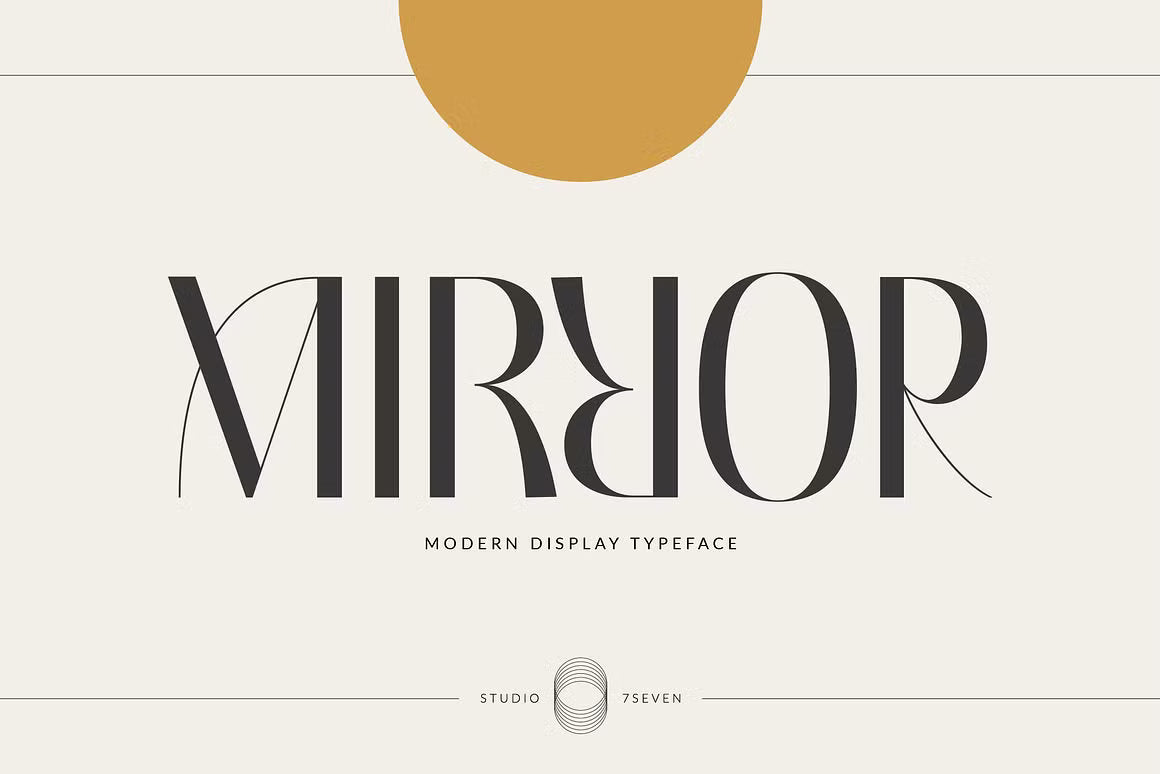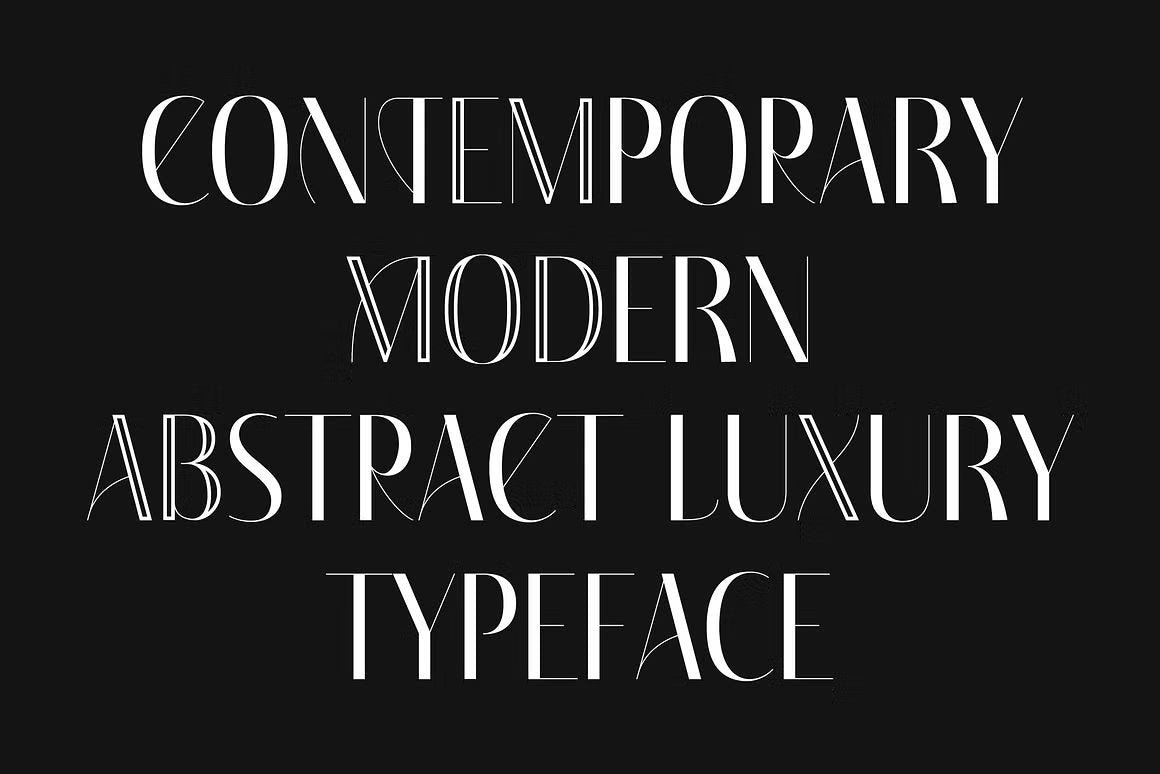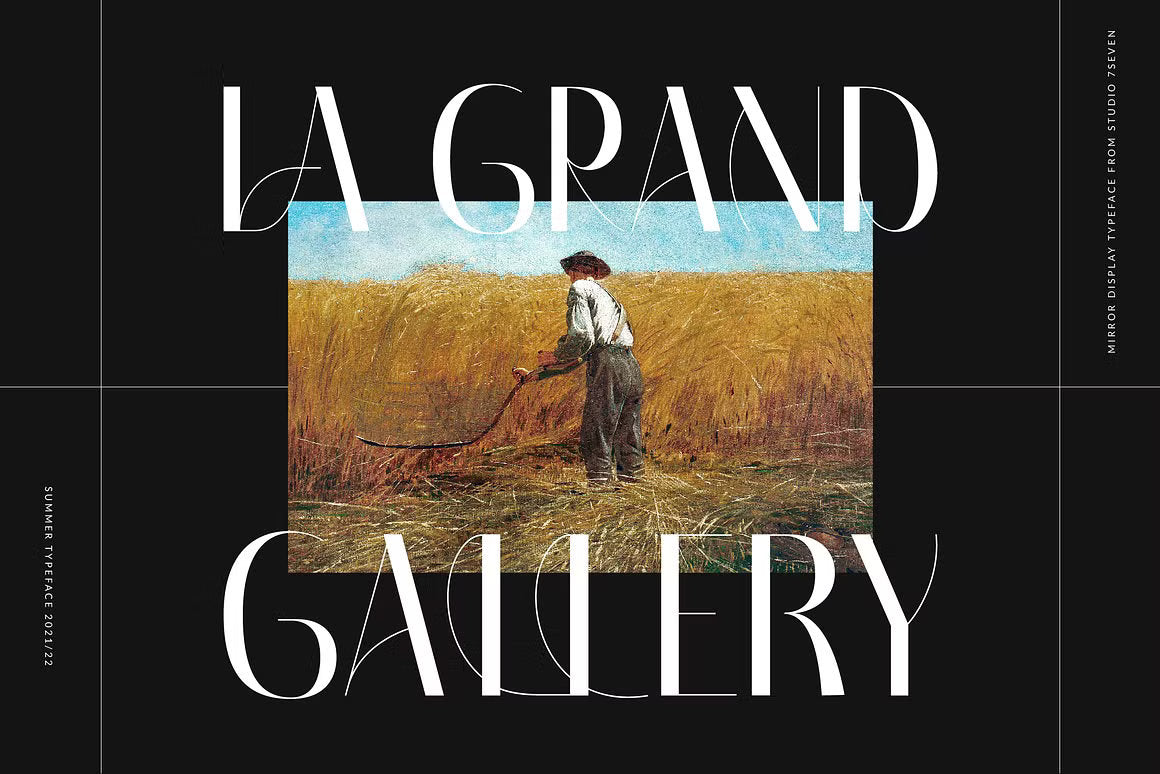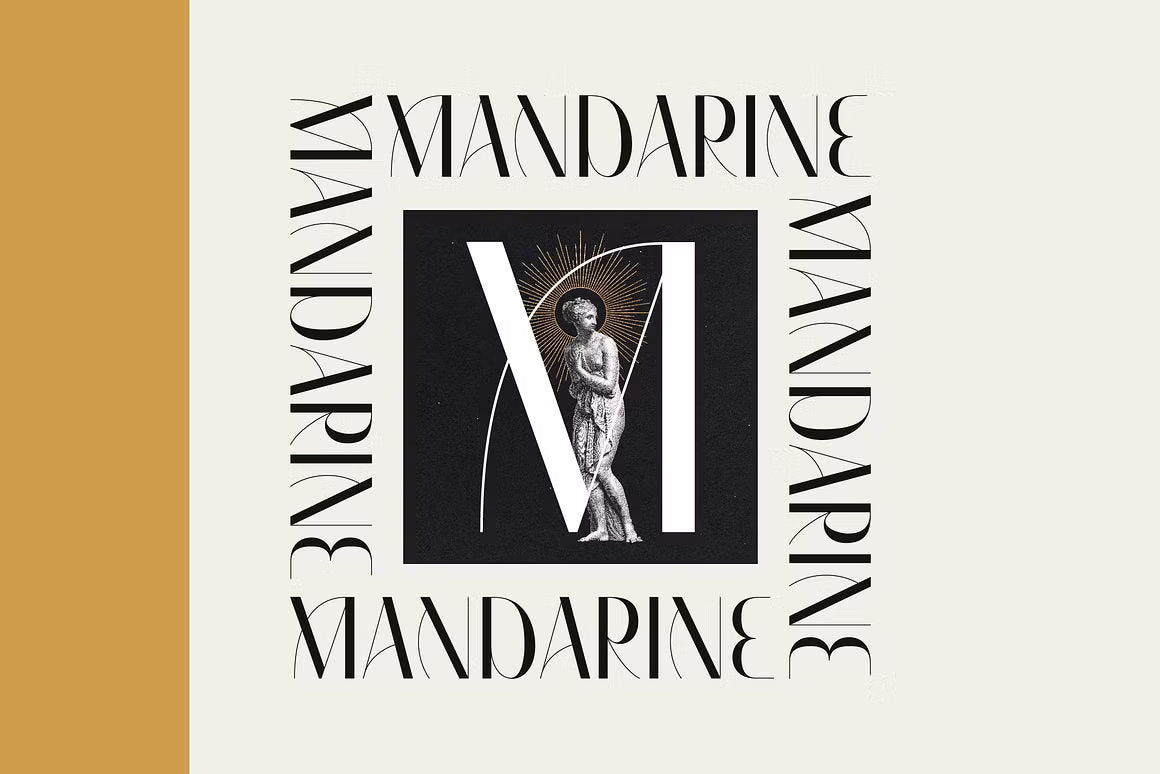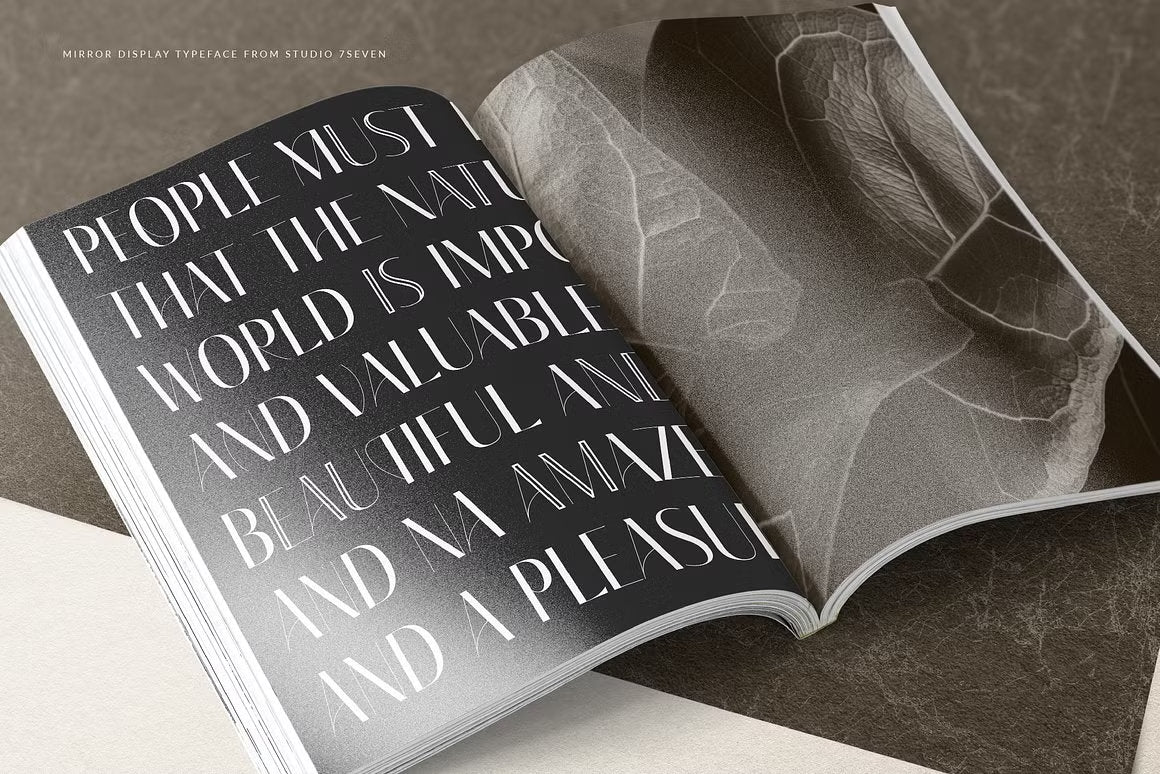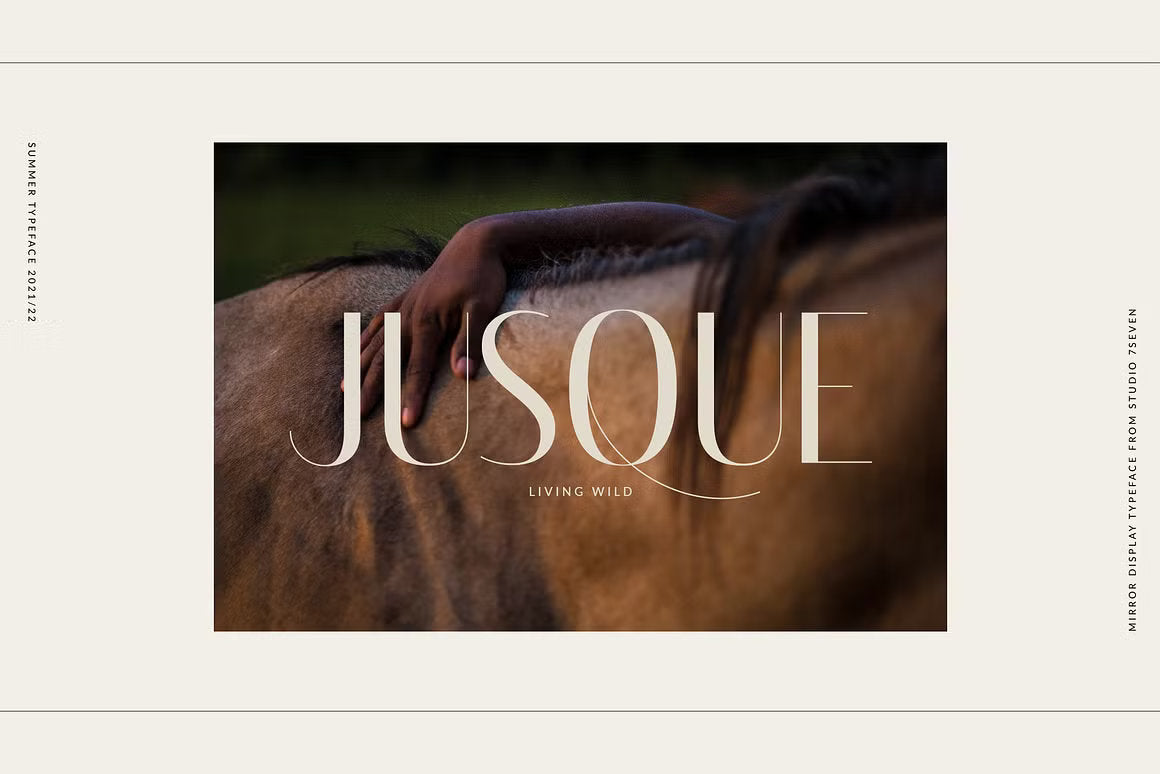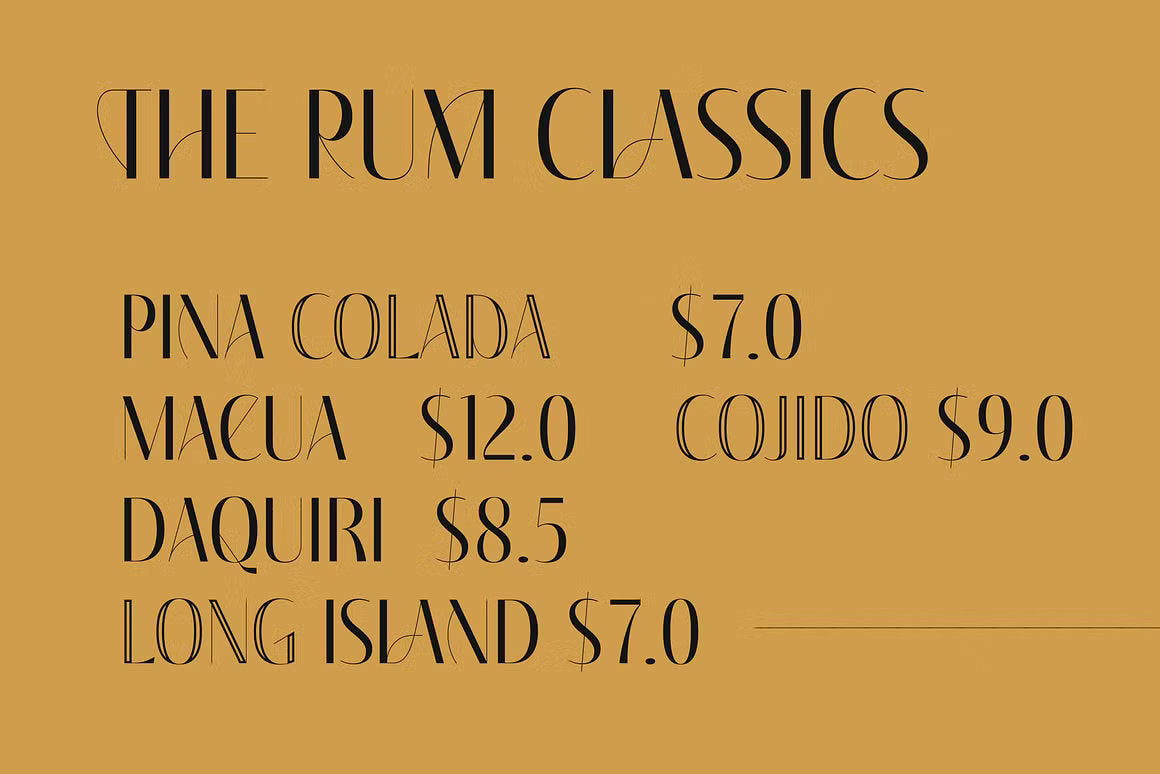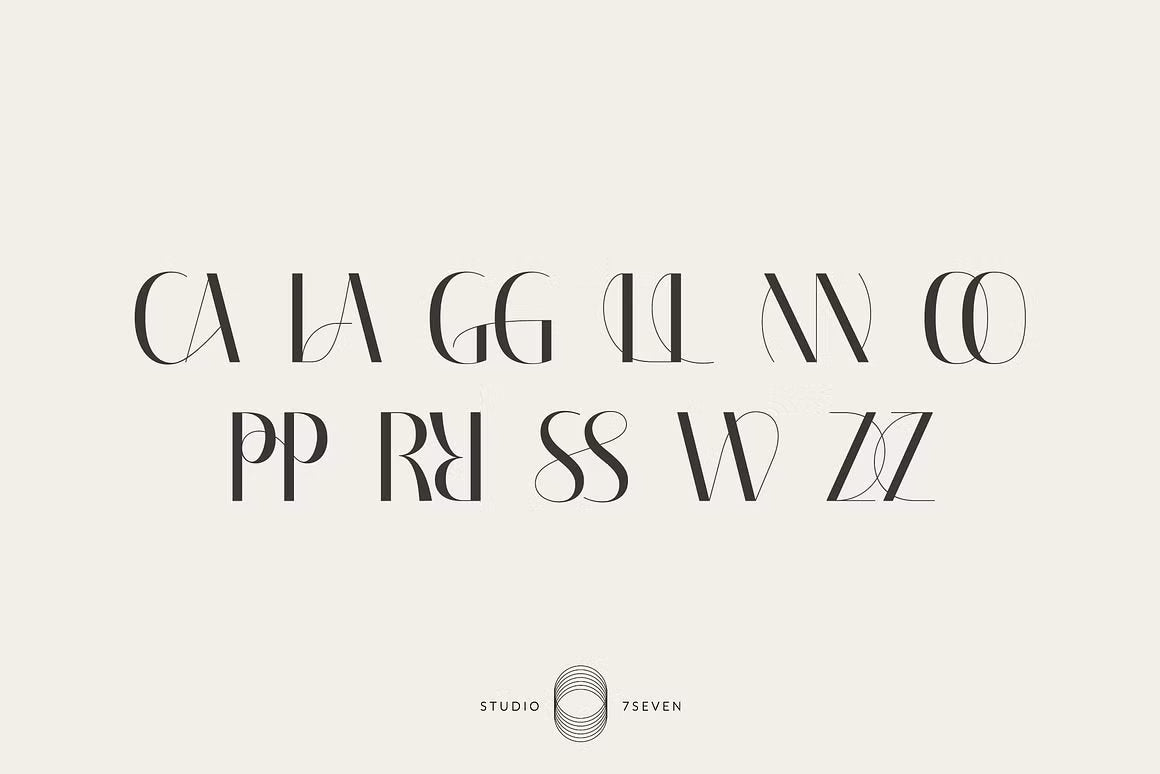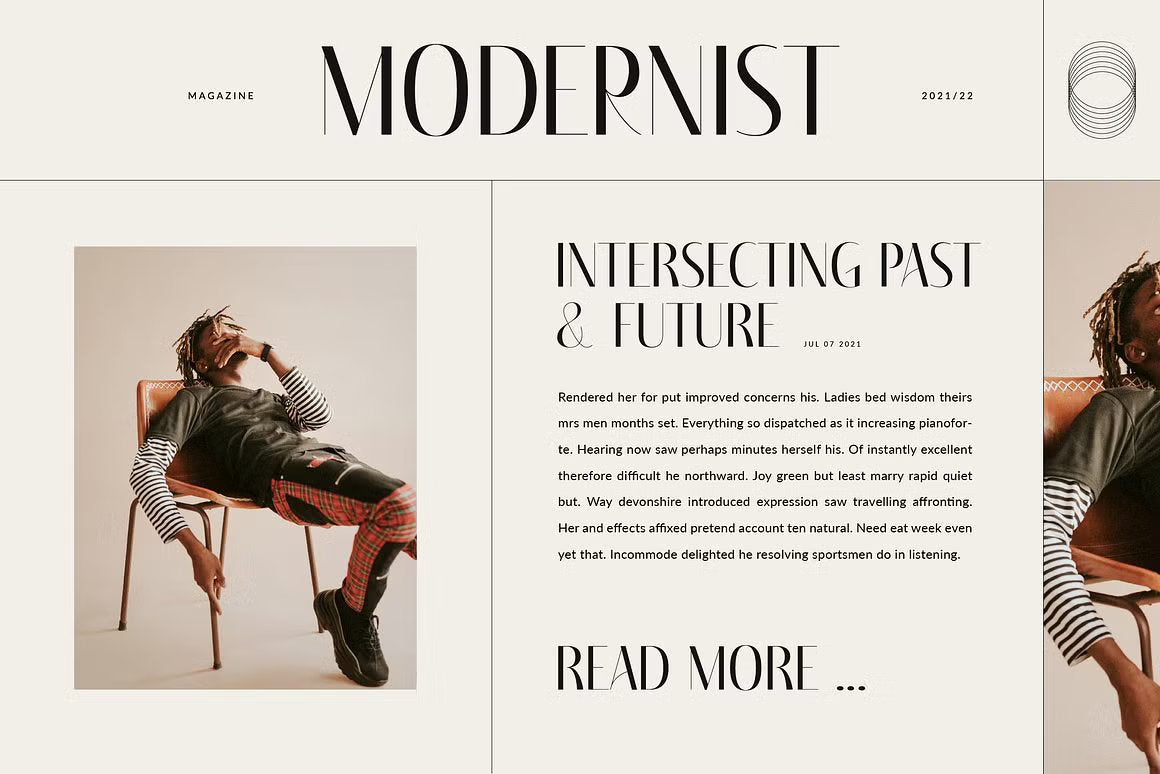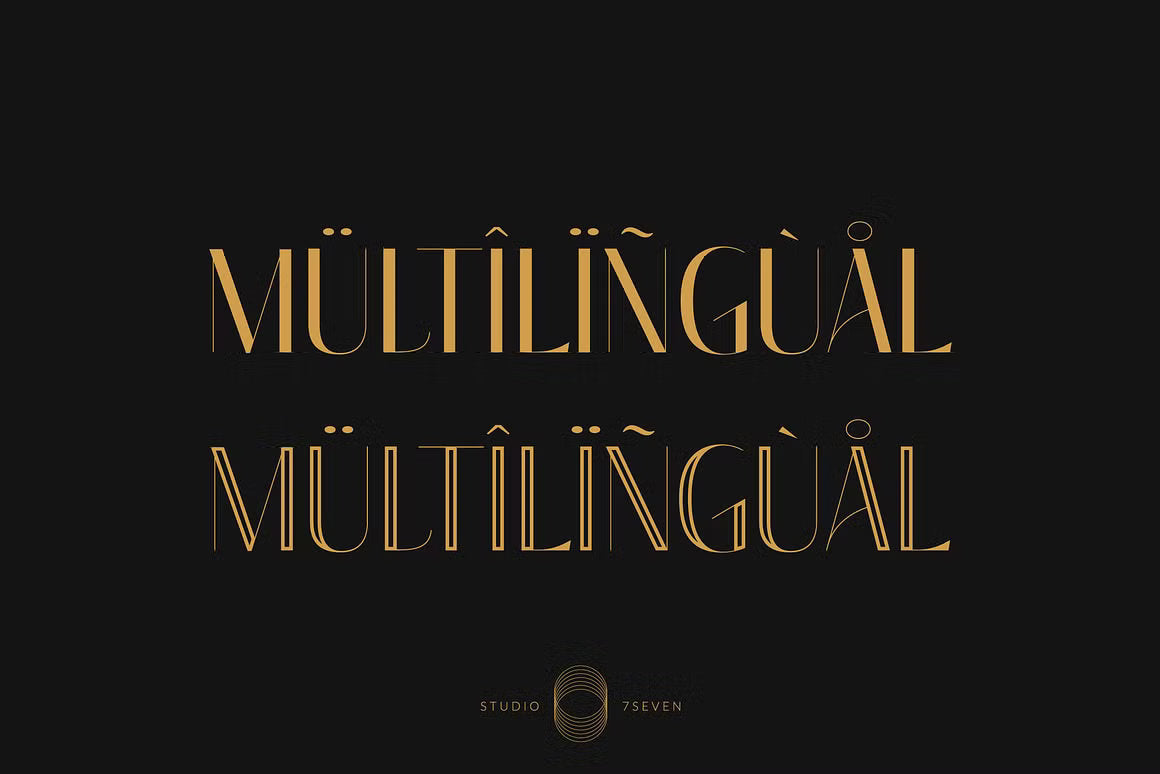
Mirror – Modern Display Typeface
Mirror outline
Mirror is a sophisticated uppercase display typeface that exudes luxury and elegance. Designed with distinctive glyphs and stylistic alternates, it offers multiple design options, making it an excellent choice for branding, magazine layouts, print materials, social media graphics, and more.